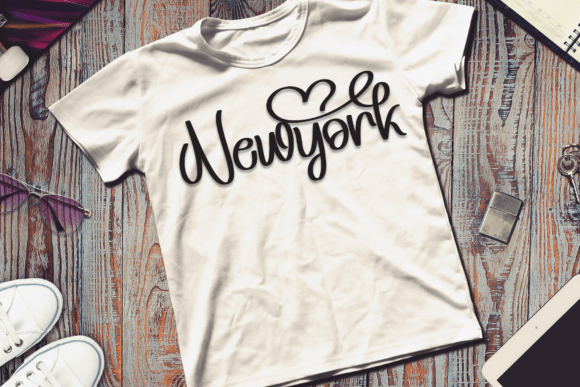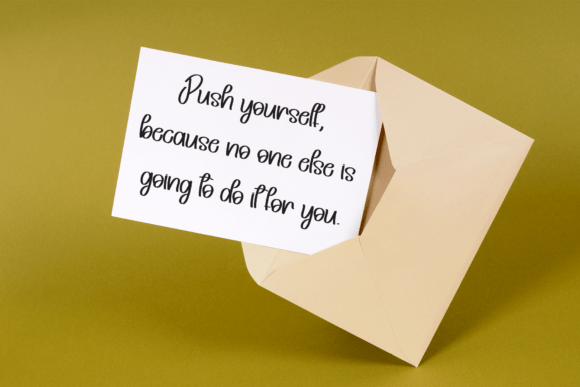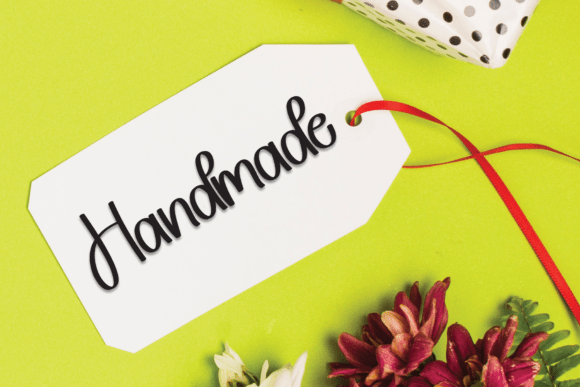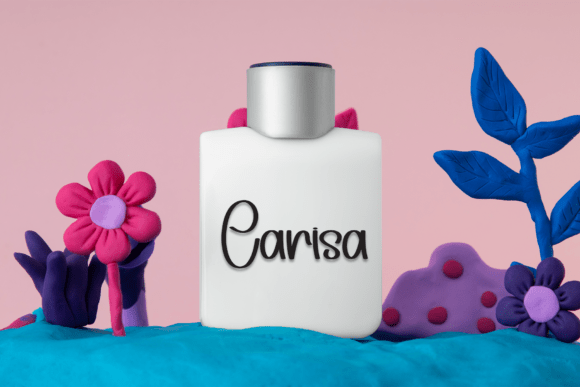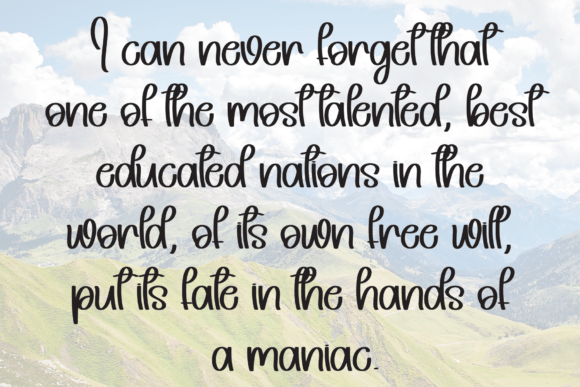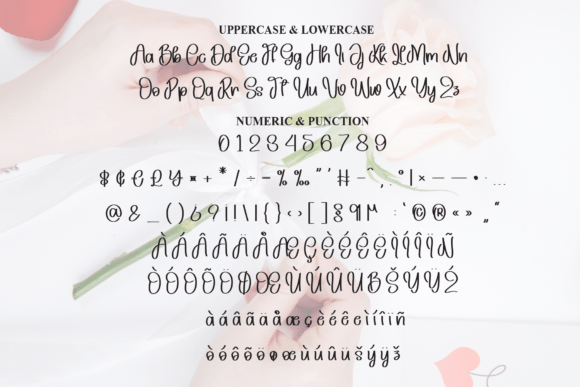
Introduction to Rosemade Font
Have you ever stared at a blank canvas, searching for the perfect font to capture the essence of your creative project? I know I have. It’s that moment of hesitation, when every font seems to lack the magic you’re looking for. But what if I told you that there’s a font that can add a touch of elegance and playfulness to your design?
Meet the Rosemade Font, a stylish handwritten script font that’s sure to become your new go-to design resource. With its flowing curves and natural rhythm, it adds a personal and charming touch to invitations, branding, and social media. Whether you’re a seasoned designer or a hobbyist, this high-quality font is a valuable addition to your toolkit, allowing you to create beautiful, professional-looking designs with ease.
Key Features of Rosemade Font
- High-quality design resource for creative projects, suitable for various applications.
- Unique, elegant design that adds a touch of sophistication to any creative project.
- Perfect for use in graphic design, digital art, and other creative endeavors that require high-quality typography.
Honest Review: Rosemade Font
As a designer, I’m always on the lookout for high-quality fonts to elevate my creative projects. Recently, I stumbled upon the Rosemade Font, which promises to deliver a unique and elegant aesthetic.
Here are the things that really stand out to me:
- ✨ Unique character set: The Rosemade Font features a distinctive set of characters that add a touch of sophistication to any design.
- ✨ High-quality design: The font is meticulously crafted with attention to detail, making it perfect for designers who demand the best.
- ⚠️ Limited font weights: While the Rosemade Font is beautiful, it’s only available in a limited number of weights, which may not be ideal for projects that require a range of font weights.
- ⚠️ Not suitable for small text: Due to its elegant design, the Rosemade Font may not be the best choice for small text or body copy.
Overall, I’m impressed with the Rosemade Font’s unique character set and high-quality design. While it has its limitations, it’s a great resource for designers who want to add a touch of elegance to their creative projects.
Rosemade Font
Tips for Getting the Most Out of Rosemade Font
To get the most out of the Rosemade Font, use it in combination with other design elements, such as images and shapes, to create visually appealing designs. You can also experiment with different font sizes and colors to achieve the desired look.
The Rosemade Font is perfect for a variety of creative projects, including: